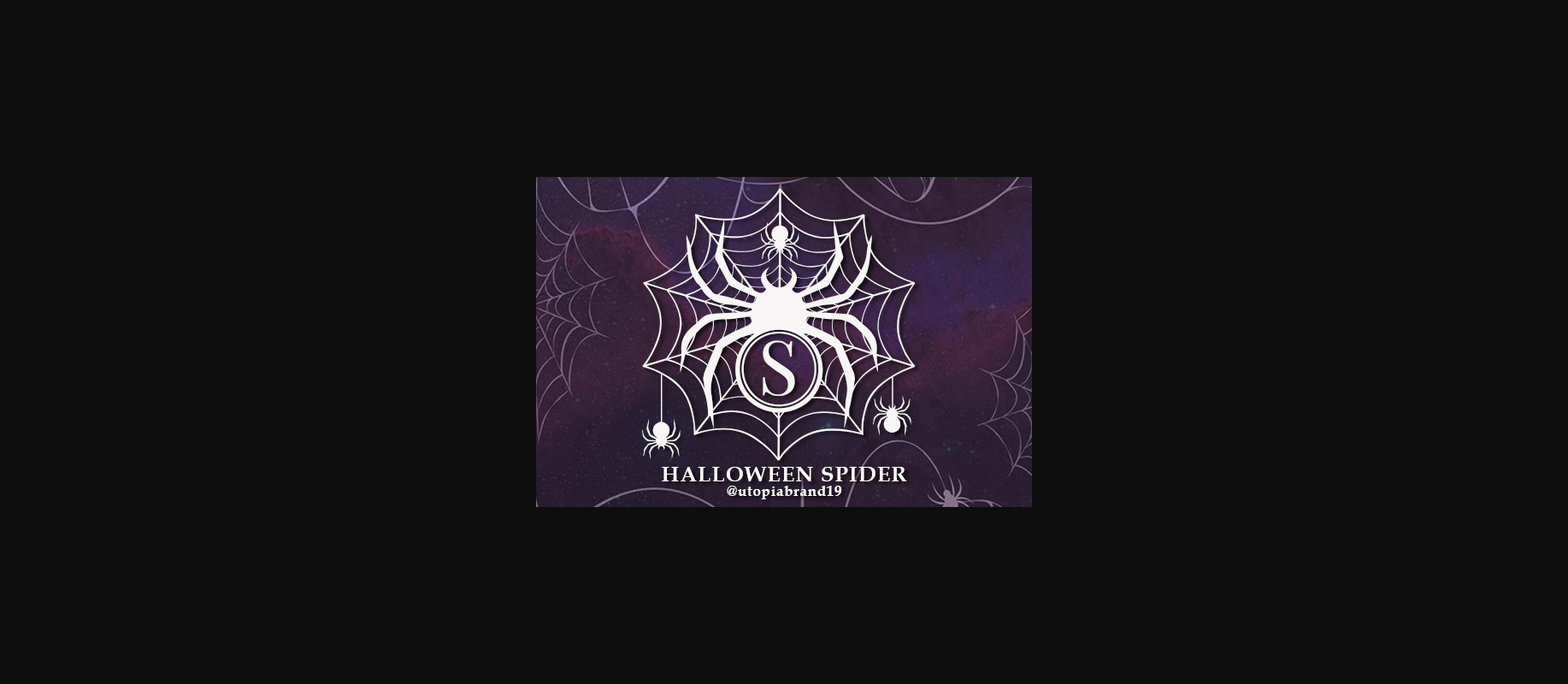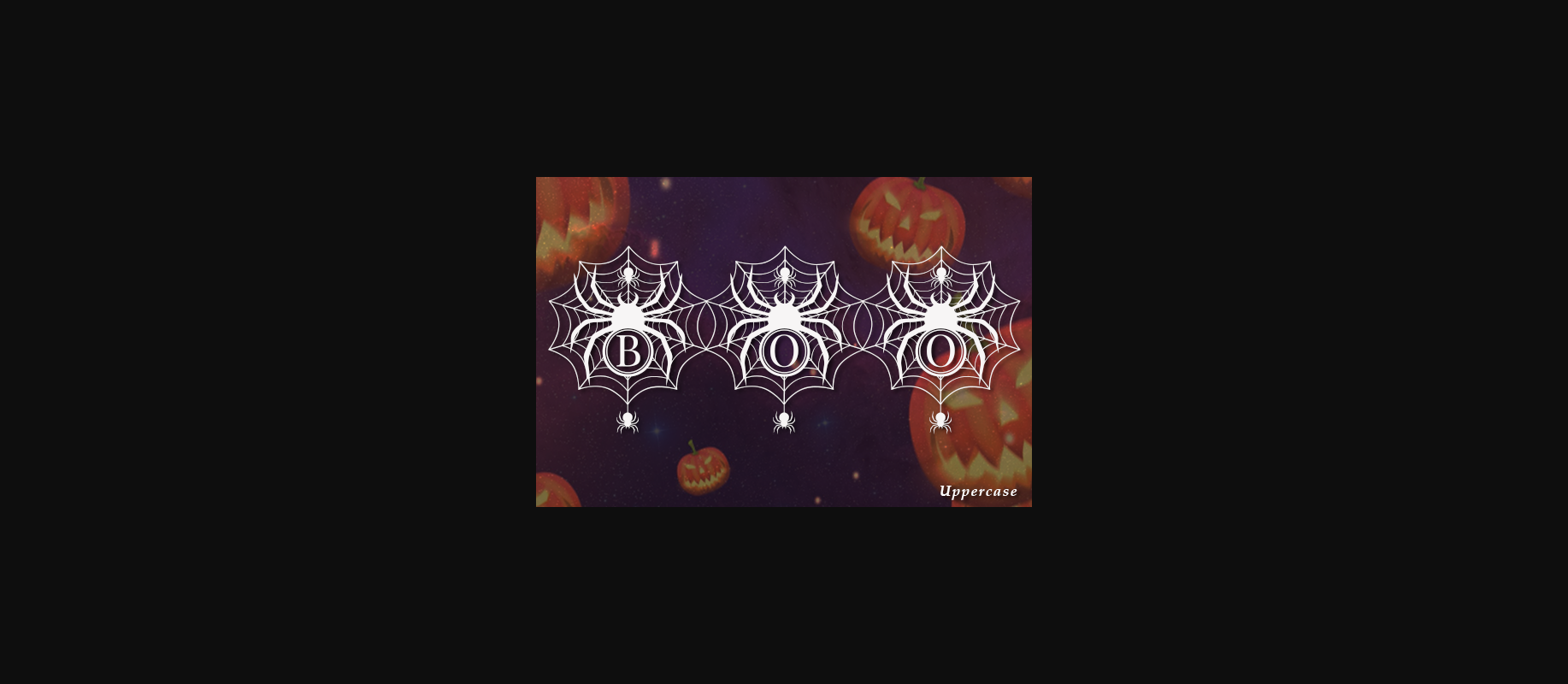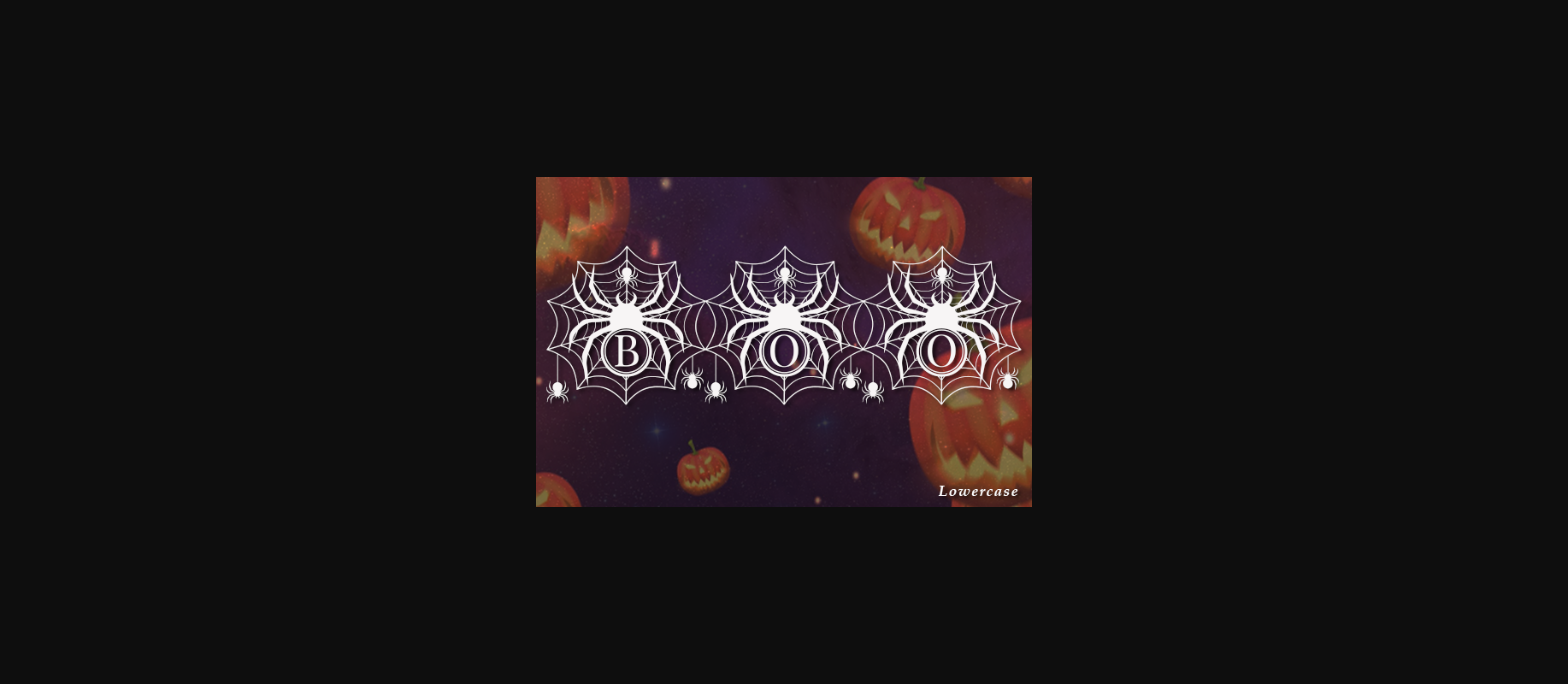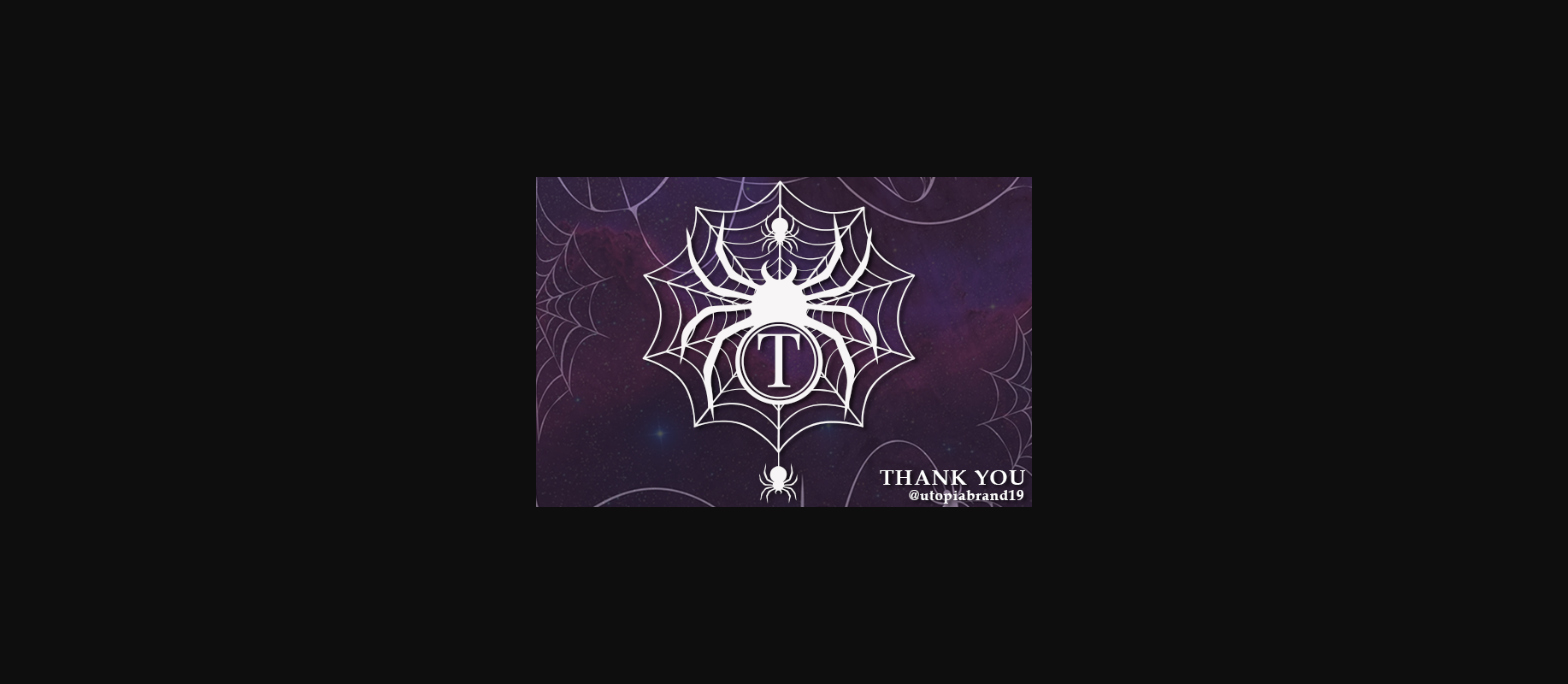
About Halloween Spider Monogram Font
Halloween Spider Monogram is an incredibly unique and spooky decorative font. Add it to each of your Halloween designs and make them stand out!